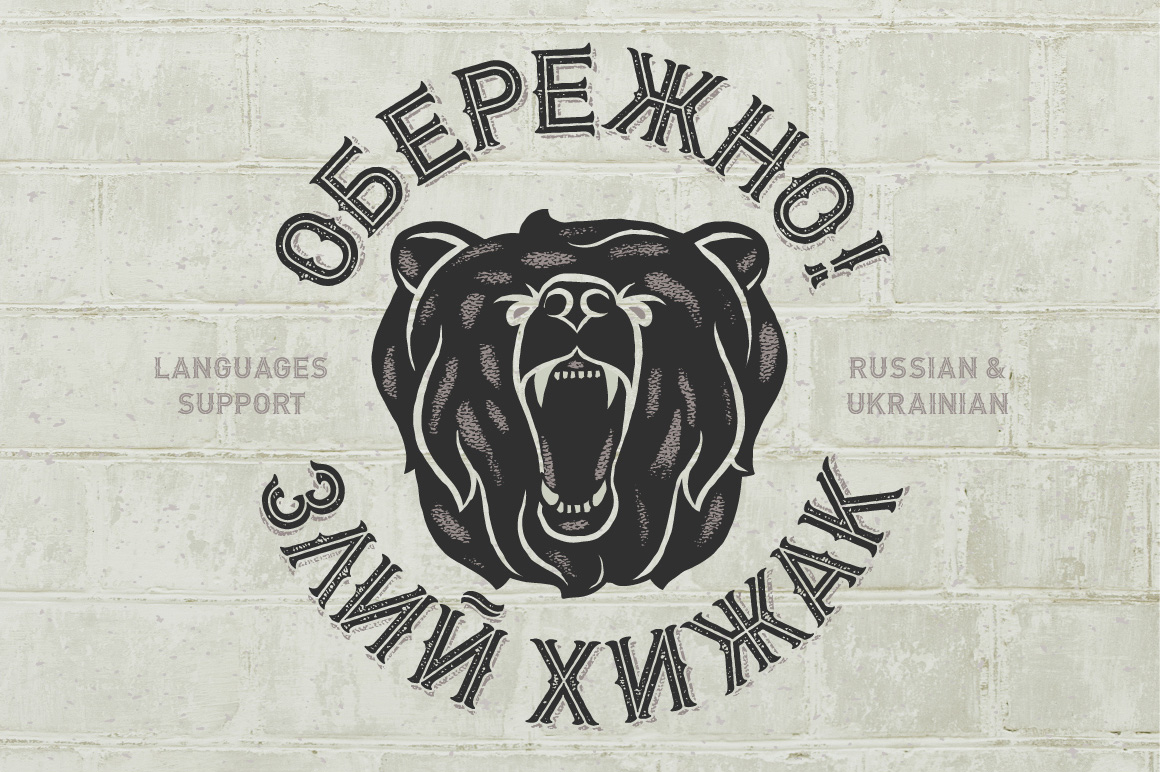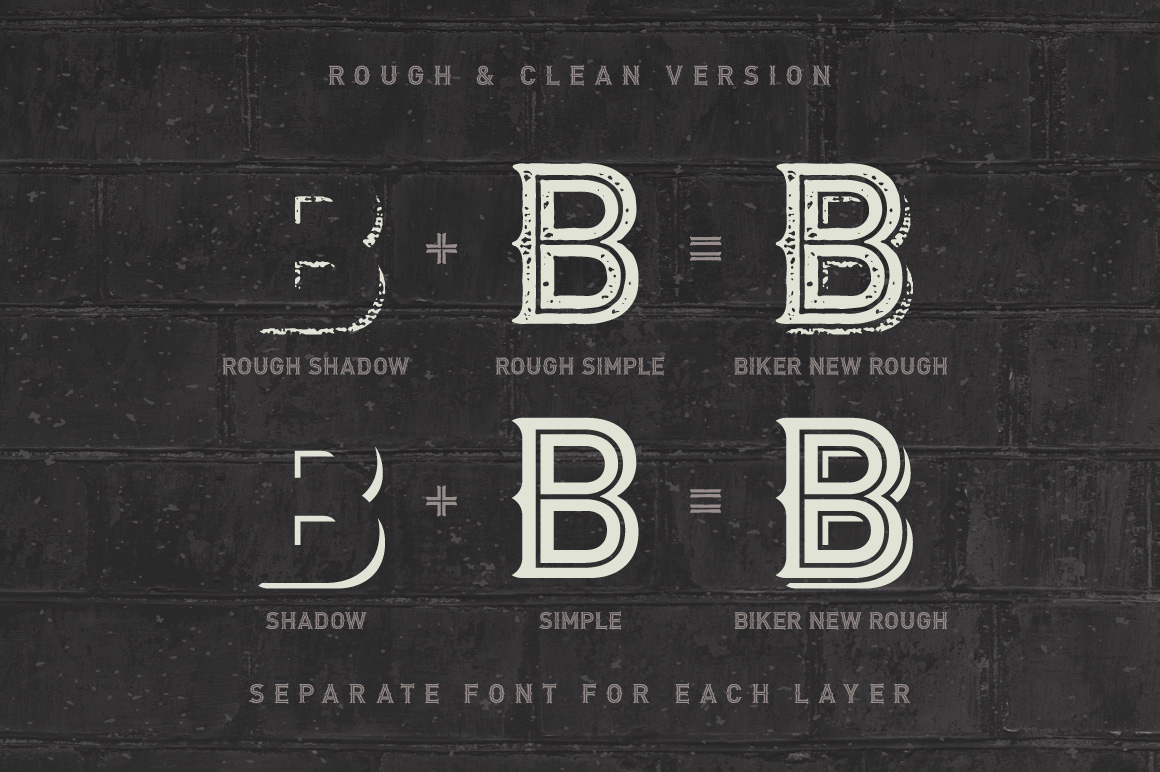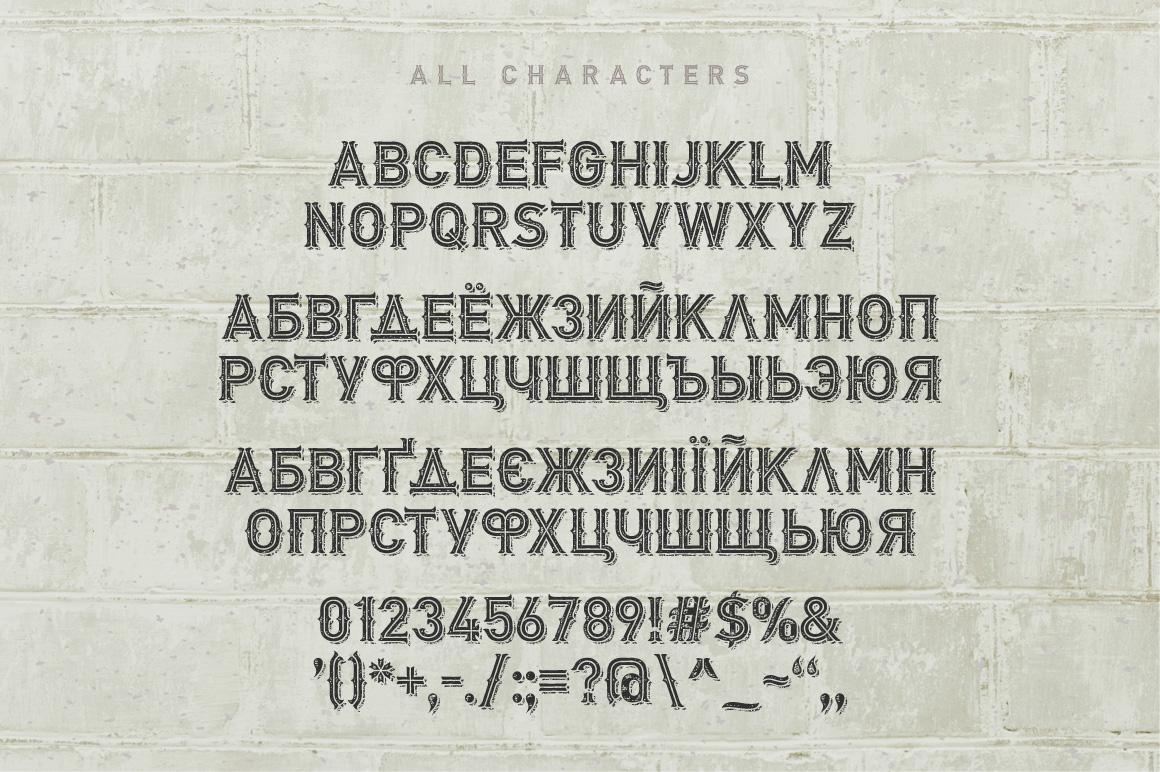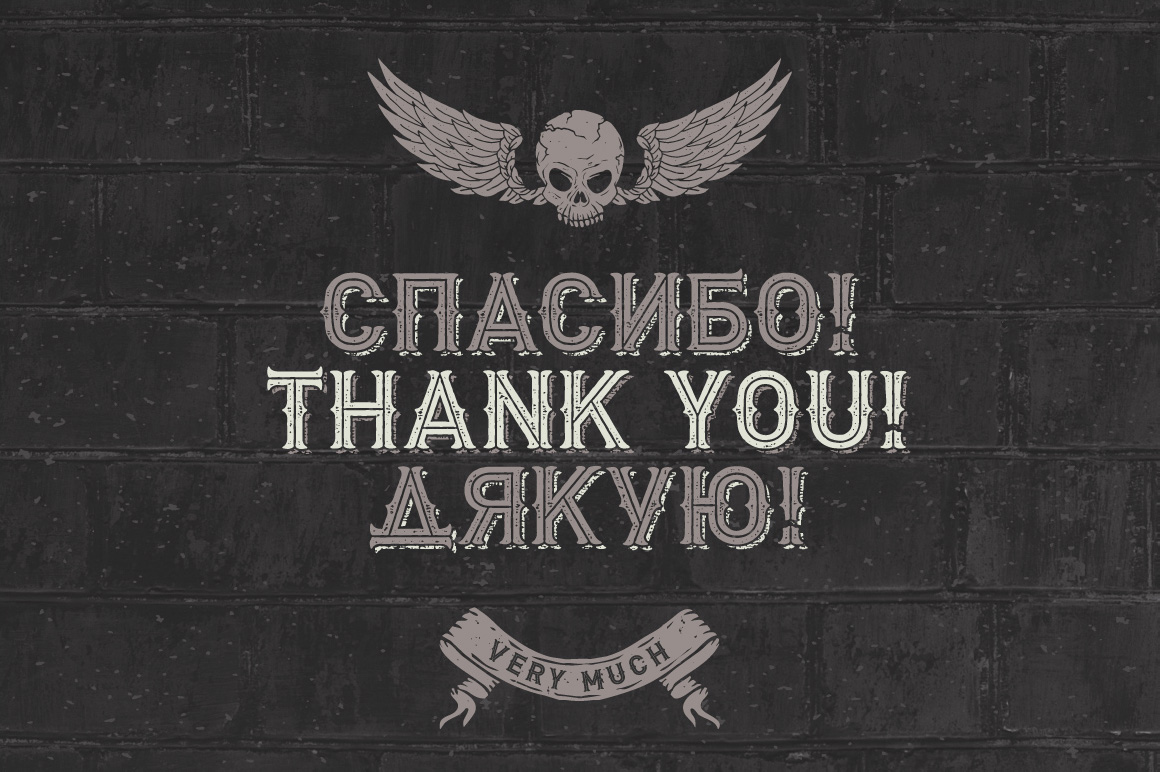
Biker Font: Unleash Your Creativity with this Beautiful Set of Fonts
Are you a designer, crafter, or DIY enthusiast looking for a unique and versatile font to add a personal touch to your projects? Look no further than Biker Font, a stunning set of fonts that offers endless possibilities for creative expression. In this article, we’ll dive into the world of Biker Font, exploring its features, benefits, and uses, and provide you with valuable insights on how to make the most of this incredible font collection.
Biker Font: A Beautiful Set of Fonts for Endless Creativity
Biker Font is a carefully crafted collection of fonts that allows you to create a wide range of variations with different complexity levels. This beautiful set of fonts is designed to inspire your creativity, whether you’re working on a graphic design project, crafting a handmade card, or simply looking for a unique way to express yourself. With Biker Font, you can add a touch of personality to your work, making it stand out from the crowd.
Key Features of Biker Font
- Variety of Fonts: Biker Font offers a diverse range of fonts, each with its own unique character and style. From bold and edgy to elegant and refined, this collection has something for everyone.
- Endless Combinations: With Biker Font, you can mix and match different fonts to create complex and visually appealing designs. The possibilities are endless, and the results are sure to impress.
- High-Quality Design: Biker Font is designed with quality in mind. Each font is carefully crafted to ensure crisp, clean lines and precise lettering, making it perfect for both digital and print applications.
Benefits of Using Biker Font
So, why choose Biker Font for your next project? Here are just a few benefits of using this amazing font collection:
- Unique and Personalized Designs: With Biker Font, you can create one-of-a-kind designs that reflect your personality and style.
- Time-Saving: Biker Font saves you time and effort by providing a range of pre-designed fonts that you can use in your projects, eliminating the need to create your own from scratch.
- Professional-Looking Results: Biker Font is designed to help you achieve professional-looking results, even if you’re new to design or crafting.
- Versatility: Biker Font can be used in a wide range of applications, from graphic design and crafting to scrapbooking and DIY projects.
Using Biker Font in Your Projects
So, how can you use Biker Font in your projects? Here are a few ideas to get you started:
- Graphic Design: Use Biker Font to add a personal touch to your graphic design projects, such as brochures, flyers, and posters.
- Crafting: Biker Font is perfect for crafting projects, such as handmade cards, gift tags, and scrapbooking pages.
- DIY Projects: Add a touch of personality to your DIY projects, such as wood signs, wall art, and decorative items.
- Digital Applications: Use Biker Font in your digital applications, such as social media graphics, blog posts, and email newsletters.
Tips and Tricks for Getting the Most out of Biker Font
To help you get the most out of Biker Font, here are a few tips and tricks:
- Experiment with Different Fonts: Don’t be afraid to try out different fonts and combinations to find the perfect look for your project.
- Play with Size and Color: Experiment with different font sizes and colors to add depth and visual interest to your designs.
- Use Online Resources: Take advantage of online resources, such as tutorials and inspiration boards, to help you get the most out of Biker Font.